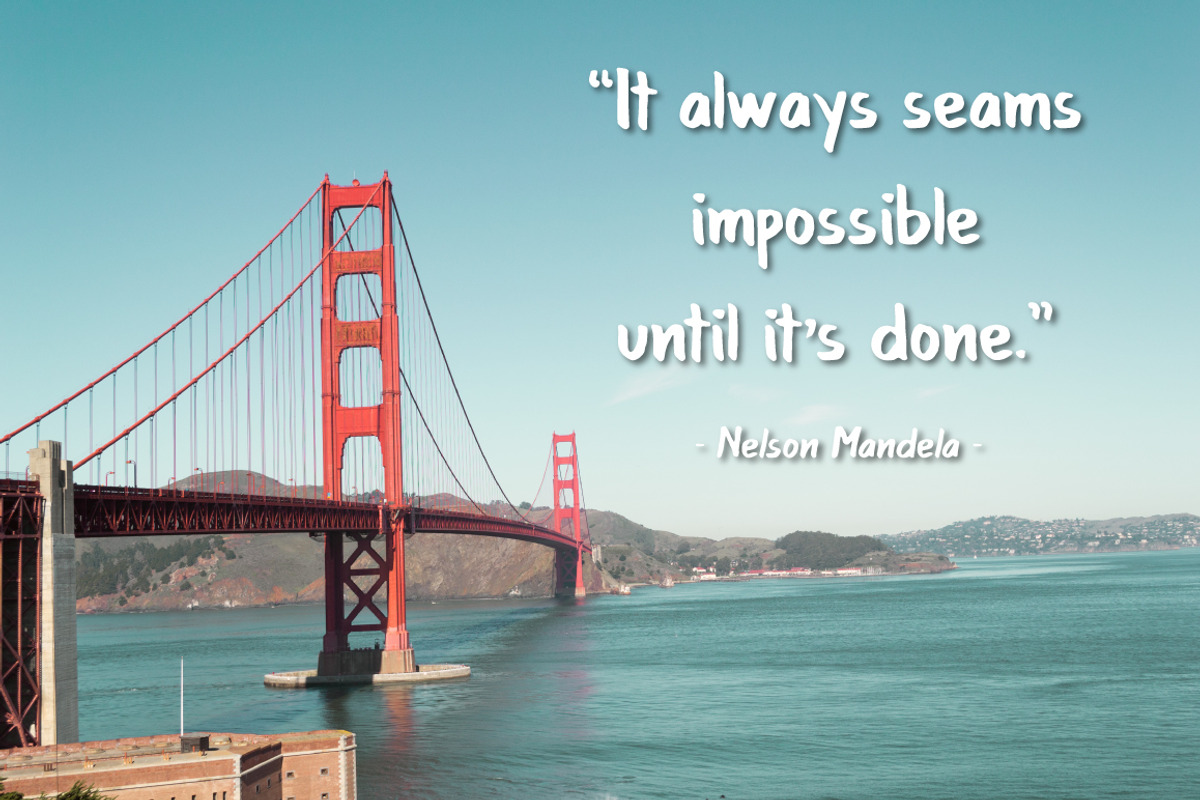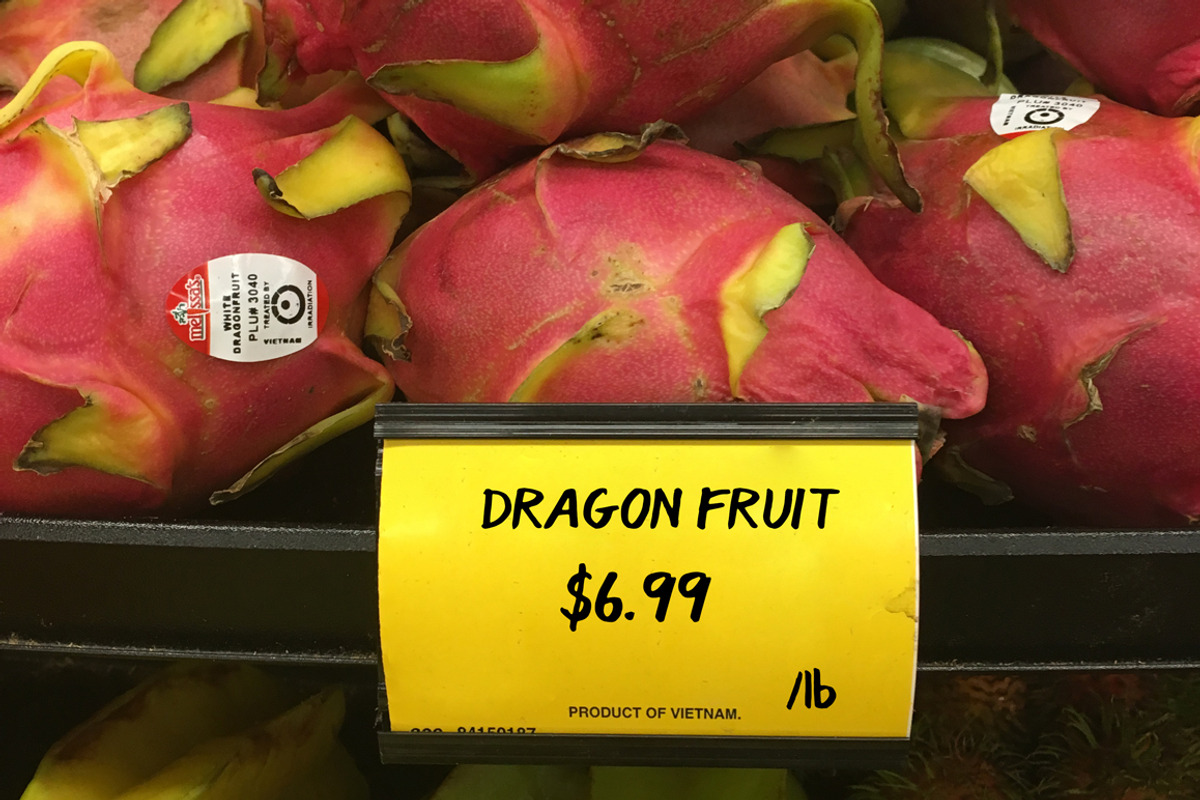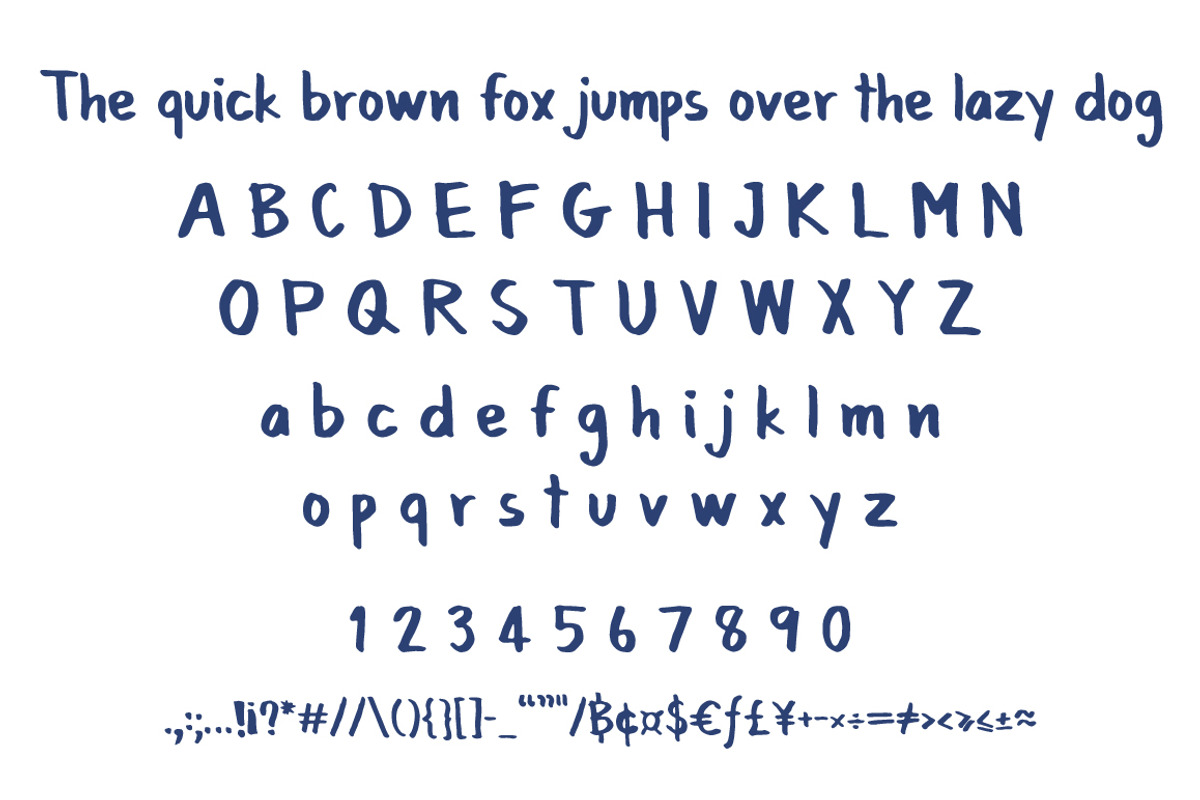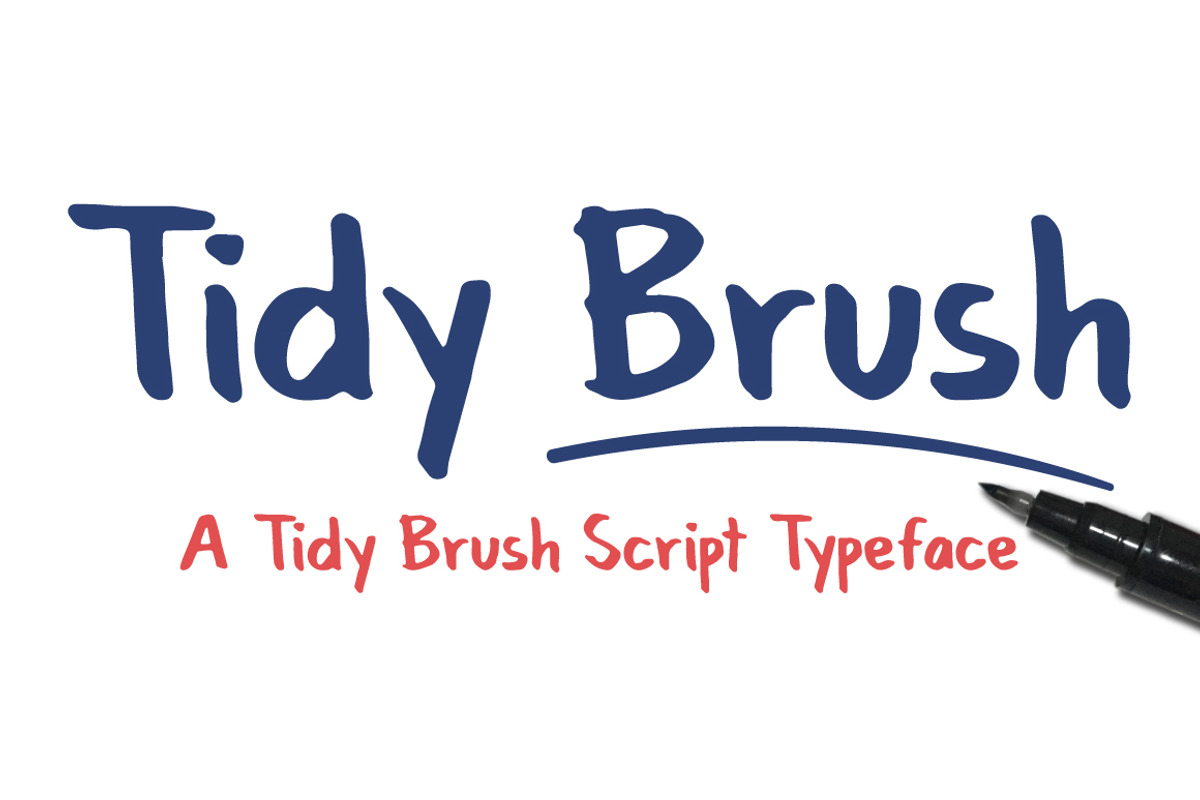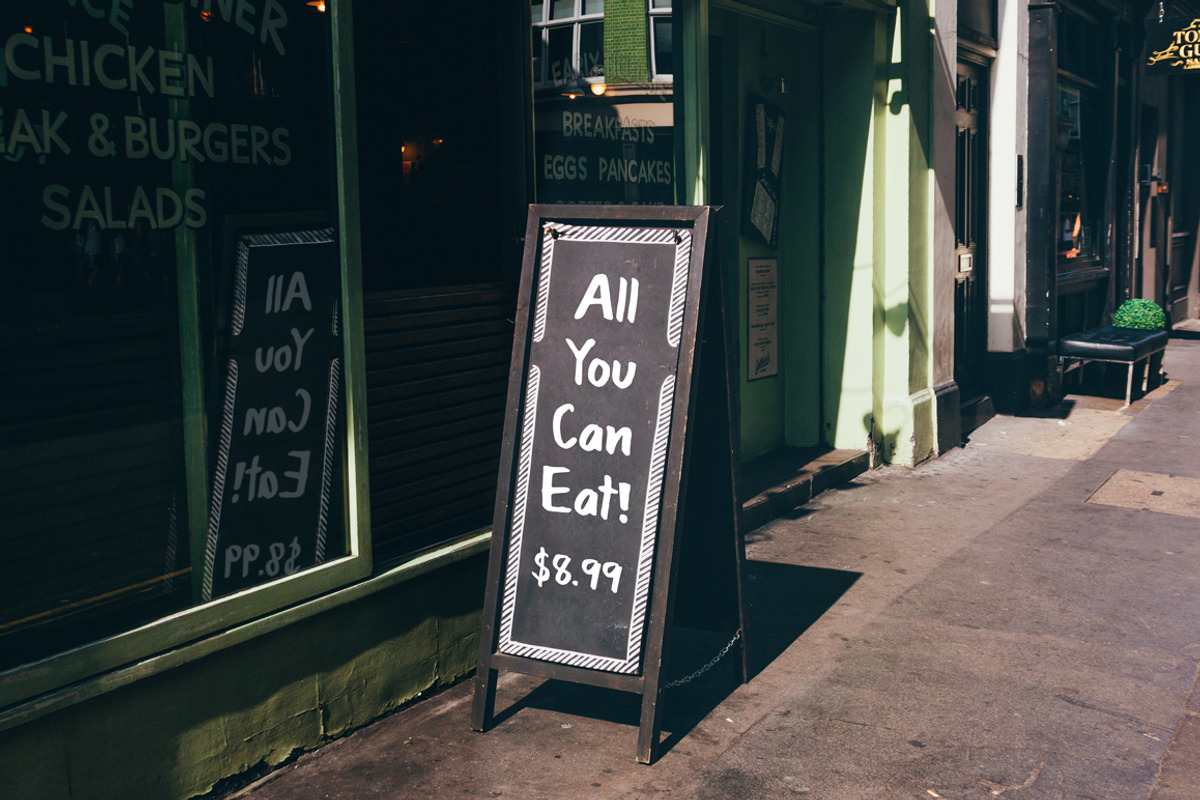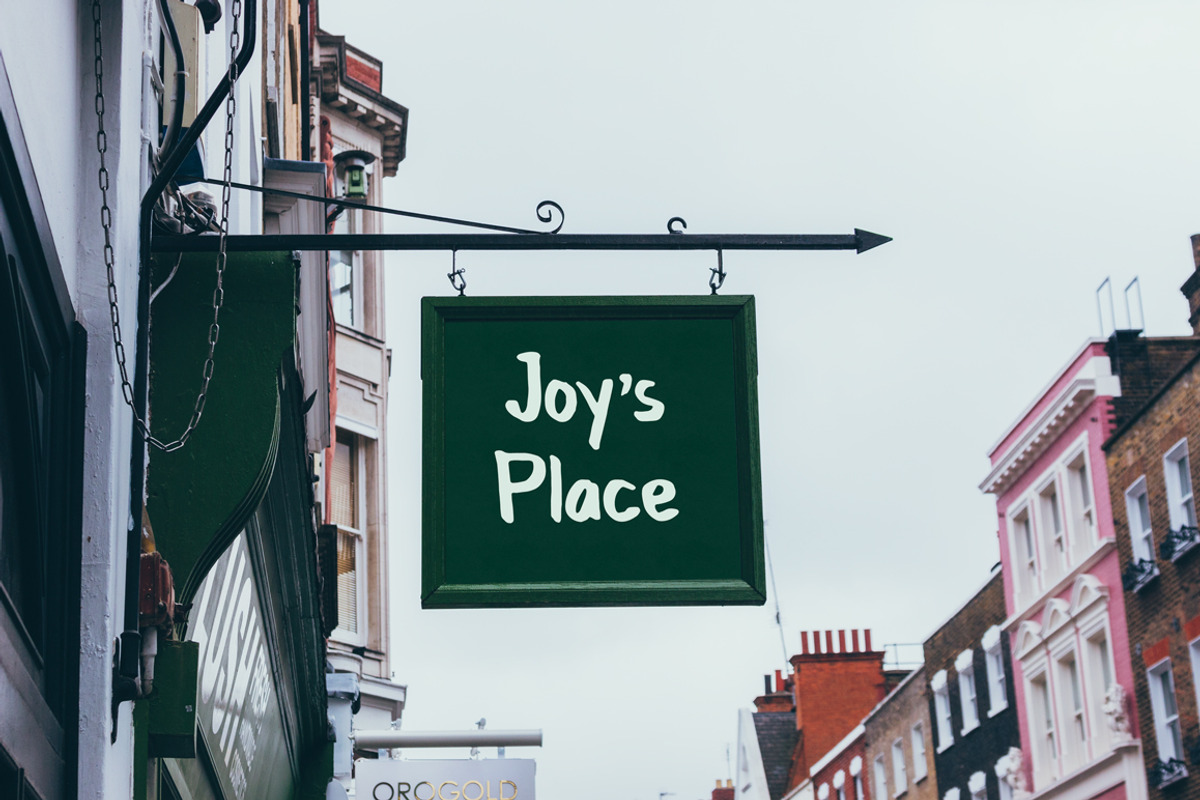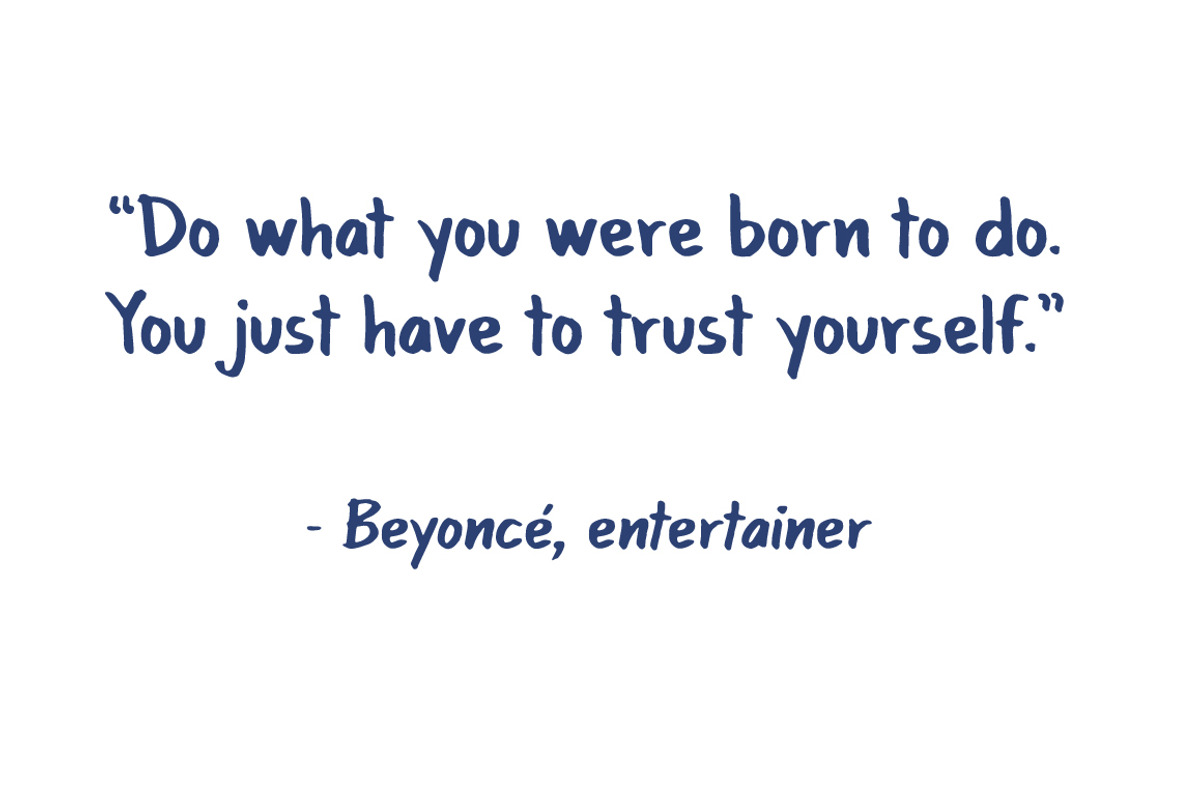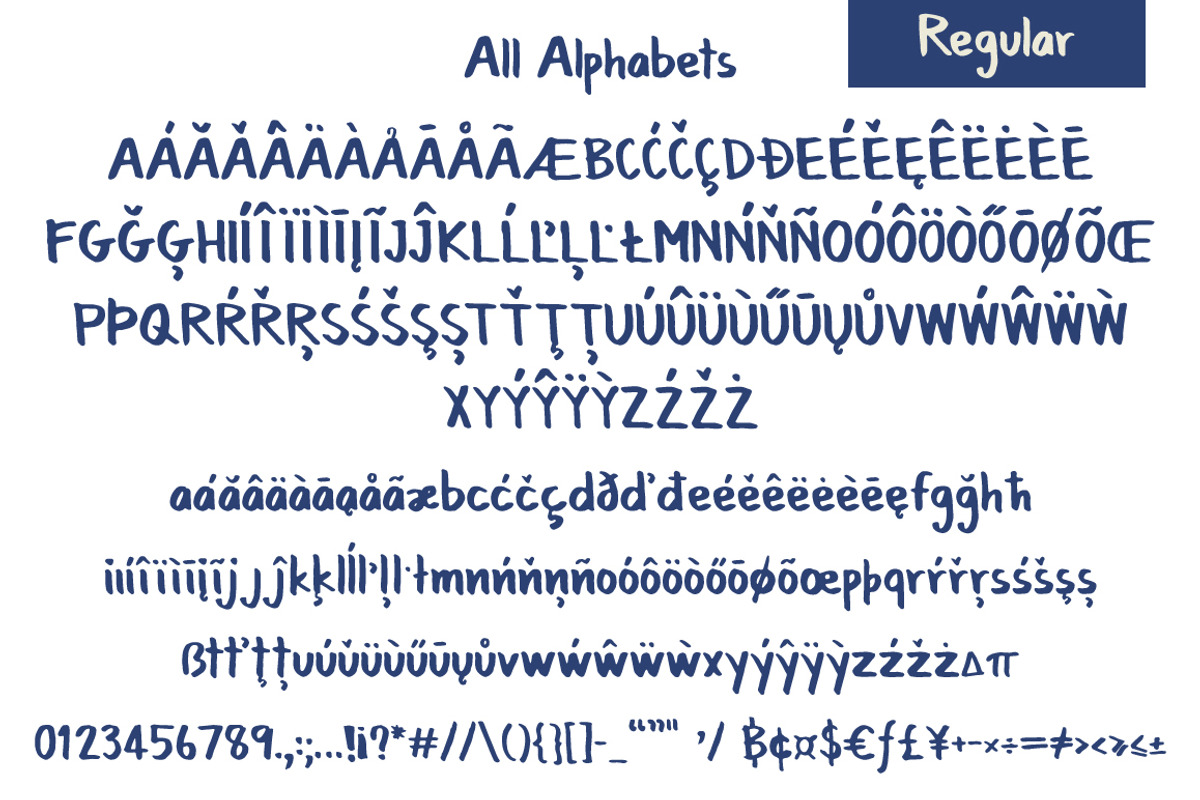
Tidy Brush Script Typeface
Tidy brush is a sans serif handwriting typeface written using a real brush pen. It can be use to pretend that you using a real brush! This easy-to-read font was designed to be tidy handwriting font.
Tidy brush come in standard English characters(A-Z, a-z), Latin letters, numbers(0-9) and Punctuations. For total 280 glyphs. It includes 2 style, Regular and Italic
- Tidy Brush Regular
- Tidy Brush Italic